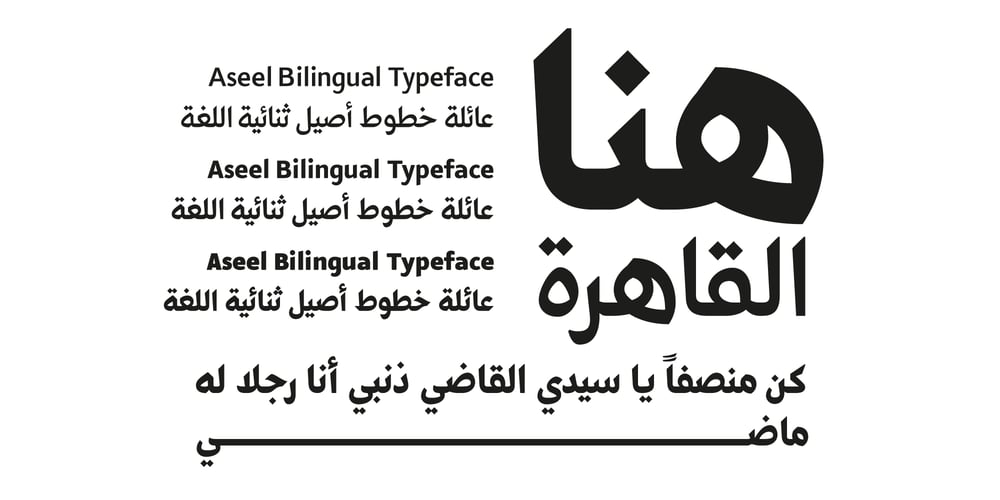
Aseel Font Family was designed by Kholoud Essawy and published by MAKYN. Aseel contains 3 styles and family package options. Aseel is a contemporary and legible typeface. It is intended to work well in the context of information and signage design. It also works well as a body text typeface as it is characterized by open counter forms and a large x-height. It is based on the Naskh calligraphic structure and has a medium stroke contrast. The letters are condensed to fit more information per line and it exists in three weights, regular, medium and bold.